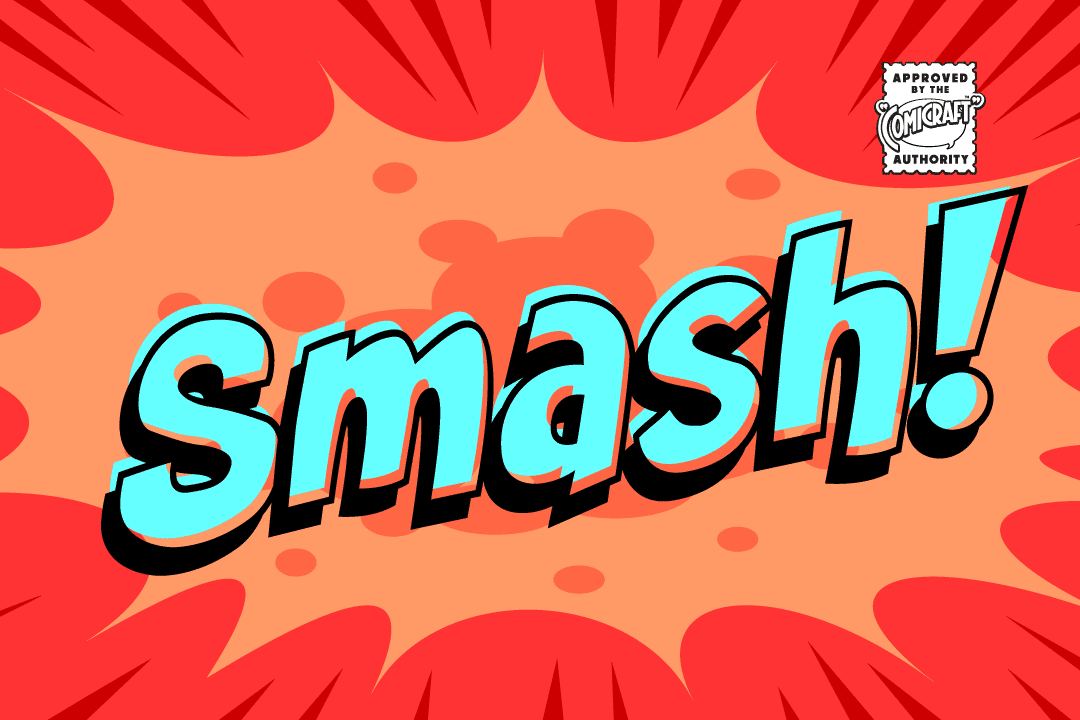
Smash - a big, loud comic book font!
Comicraft just want Puny Humans to leave Comicraft alone... Why soldiers shoot at Comicraft? PAH! Bullets do not hurt Comicraft... Bullets only make Comicraft Angry... and when Comicraft angry... COMICRAFT SMASH!